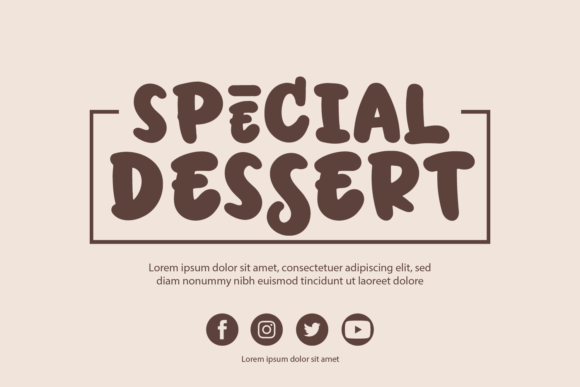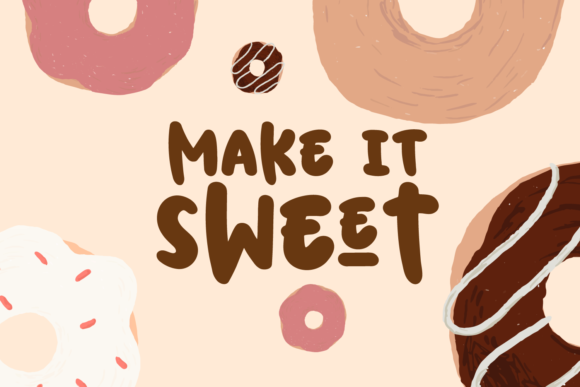
Candy Paint is a bubble font with good quality, easy access alternates, good readability. It comes in 4 styles. You can use this sweet font on dessert packaging, ads, food&drinks menus, quotes, branding, websites, and much more!